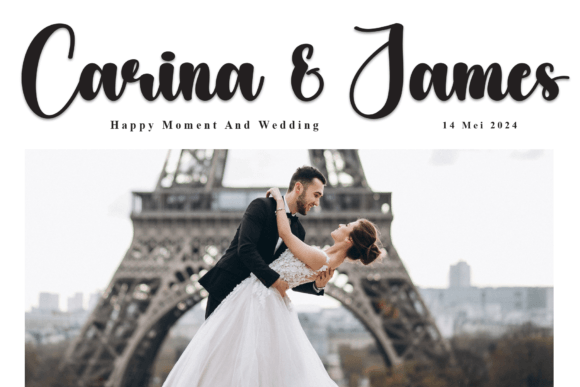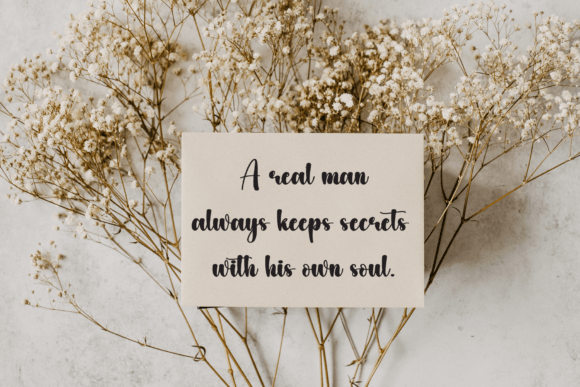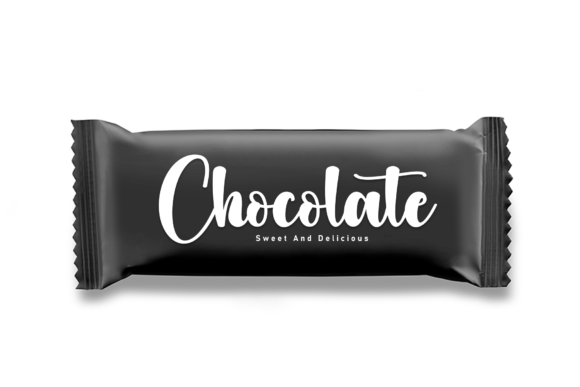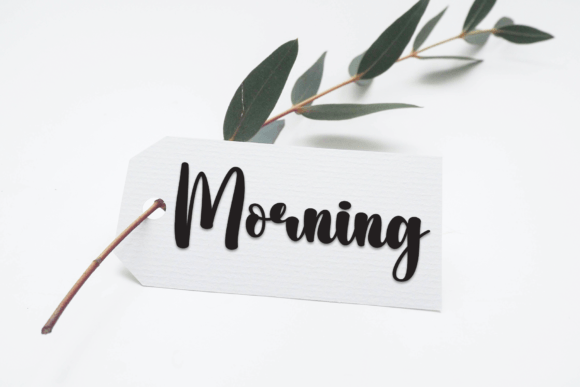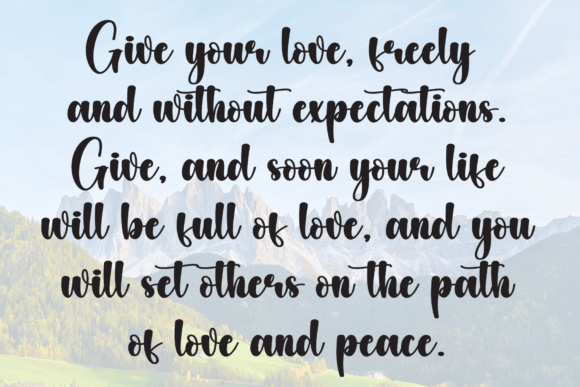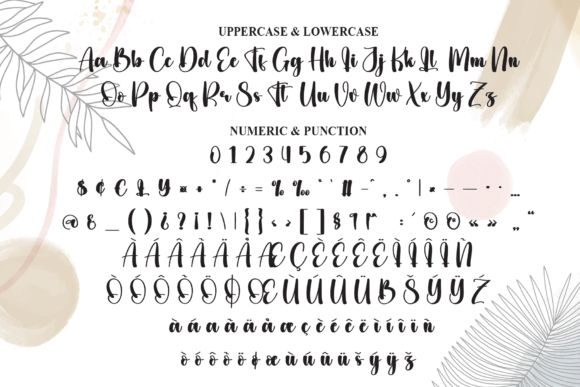
Do you remember that moment when a spark of creativity strikes, and you envision the perfect design for your next project? The excitement is palpable, and you can’t wait to bring your idea to life. For designers, this moment is all too familiar, and it’s what drives us to create something truly unique and special.
That’s where the Boho Signature Font comes in – a lively handwritten font that adds a bold and expressive touch to any design. Its unique charm is perfect for creative projects that need a bit of flair and personality. Whether you’re designing a logo, a social media post, or a wedding invitation, this font is sure to make your design stand out from the crowd.
As a designer, you understand the importance of having the right tools to bring your vision to life. The Boho Signature Font is a valuable addition to any design toolkit, offering a fresh and eclectic look that’s sure to impress.
Boho Signature Font Key Features
- Font Style: The Boho Signature Font is a unique, handwritten font that features a mix of elegant and whimsical elements, making it perfect for creative projects.
- Character Set: The font includes a wide range of characters, including uppercase and lowercase letters, numbers, and punctuation marks, ensuring you have everything you need for your project.
- Unique Characteristics: The Boho Signature Font features unique flourishes, swashes, and ligatures that give it a truly one-of-a-kind feel, perfect for adding a touch of personality to your designs.
Boho Signature Font Review
I recently had the chance to work with the Boho Signature Font, and I must say it’s a mixed bag. Here’s my honest review.
- Unique and quirky style: The Boho Signature Font has a distinctive, hand-drawn feel that sets it apart from more common fonts.
- Good for creative projects: If you’re working on a project that requires a touch of bohemian flair, this font is a great choice.
- High-quality glyphs: The font’s glyphs are well-designed and look great at various sizes.
- Limited versatility: The Boho Signature Font may not be the best choice for projects that require a more formal or professional tone.
- Not suitable for body text: The font’s unique style can be overwhelming when used for large blocks of text.
- May not be suitable for small text sizes: The font’s intricate details may become difficult to read when scaled down.
The Boho Signature Font is a great choice for creative projects that require a touch of whimsy, but it may not be the best fit for more formal or professional work. With a little caution and consideration, this font can be a great addition to your design toolkit.
To get the most out of the Boho Signature Font, try combining it with other creative elements, such as:
- Hand-drawn illustrations
- Watercolor textures
- Minimalist backgrounds
The Boho Signature Font is perfect for:
- Artistic quotes and posters
- Blog and website headers
Alternatives to Boho Signature Font
Great Vibes Font is a modern, elegant script font perfect for creating a unique and sophisticated look. It’s ideal for designs that require a touch of luxury and sophistication, such as high-end fashion, beauty, or luxury brand materials.
Compared to Boho Signature Font, Great Vibes Font has a more refined and polished feel, making it suitable for more formal designs. It lacks the bohemian and free-spirited vibe of Boho Signature Font but offers a more timeless and classic look.
Alex Brush Font is a beautiful, handwritten script font that’s perfect for creating a warm and inviting atmosphere. It’s ideal for designs that require a personal and emotional connection, such as wedding invitations, personal branding, or lifestyle materials.
Compared to Boho Signature Font, Alex Brush Font has a more natural and organic feel, making it suitable for designs that require a sense of intimacy and connection. It lacks the edginess and boldness of Boho Signature Font but offers a more gentle and soothing look.